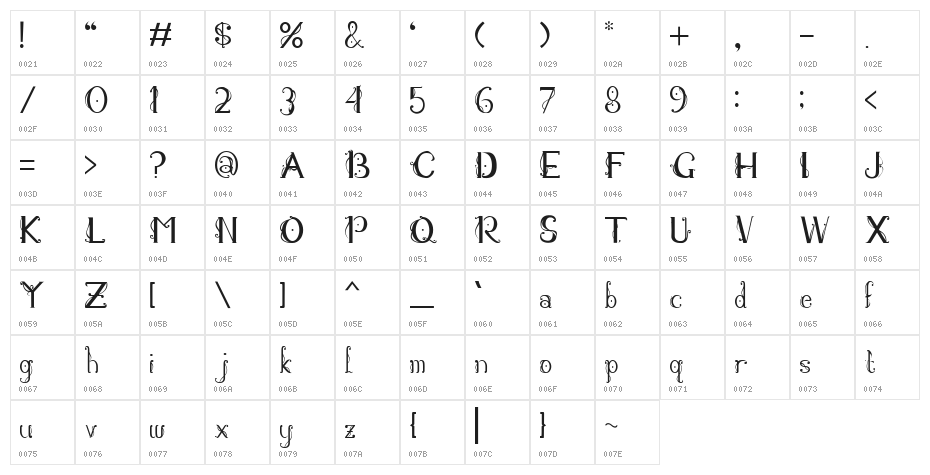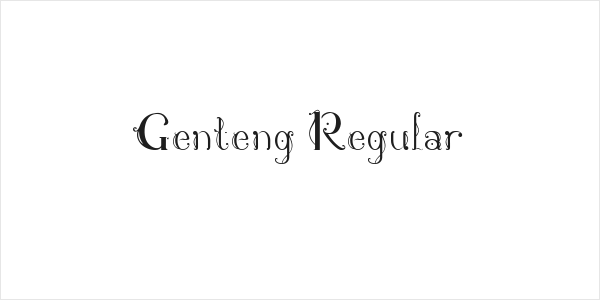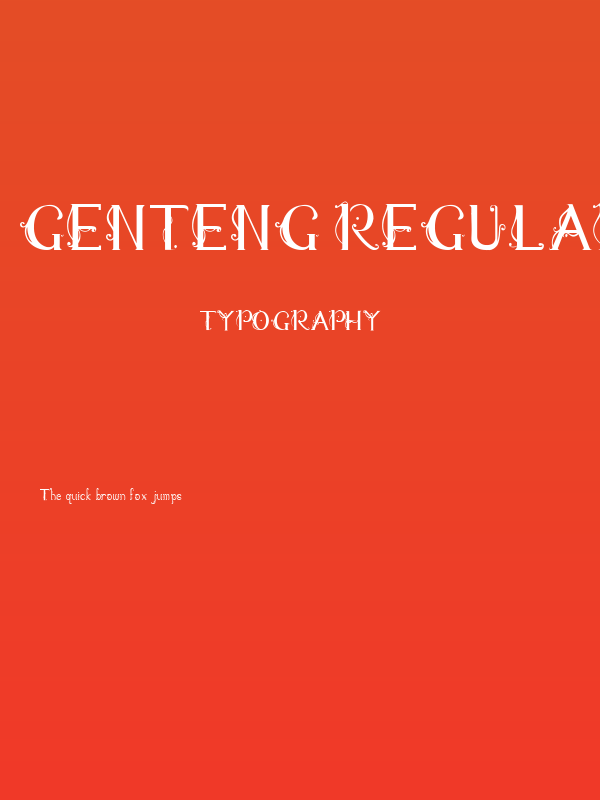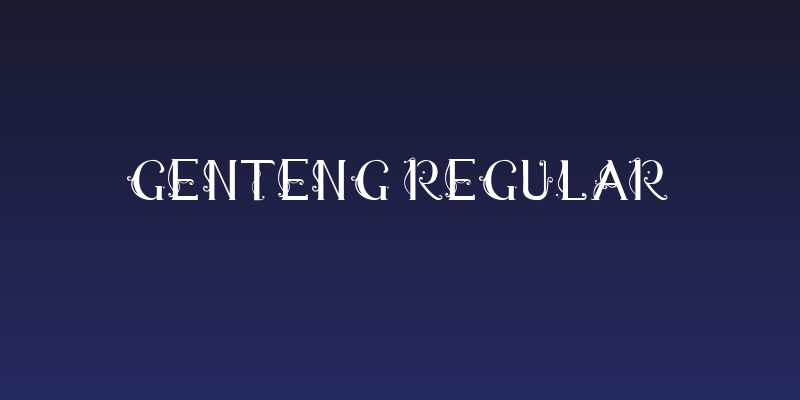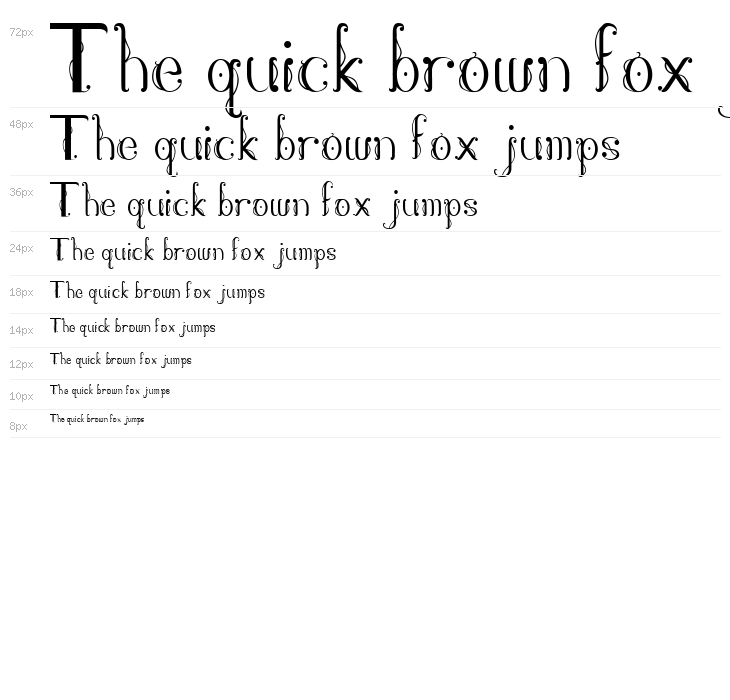
Genteng Regular Font
Genteng Regular Description
This font features a unique and decorative style, characterized by its elegant and artistic flourishes. Each letter is adorned with intricate swirls and embellishments, giving it a whimsical and ornate appearance. The uppercase and lowercase letters maintain a consistent design theme, with the lowercase letters being slightly more compact. The numerals and special characters are equally stylized, ensuring a cohesive look across all glyphs. This font's distinctiveness makes it stand out, ideal for creative and artistic projects where a touch of elegance is desired.
| Proposed Projects | Ideal for wedding invitations, artistic posters, branding for luxury products, and decorative headings. |